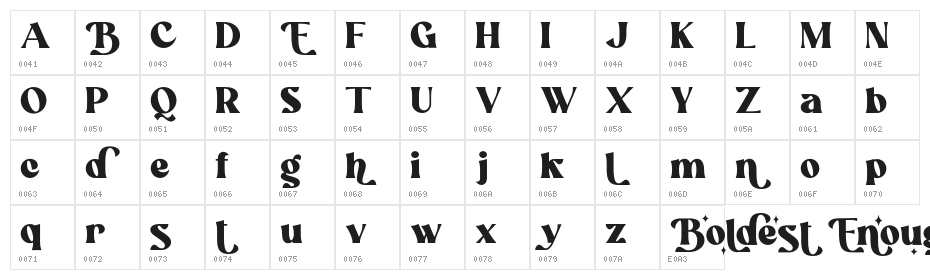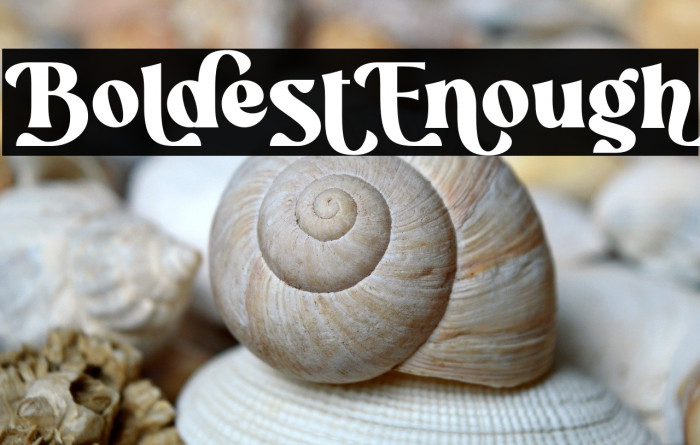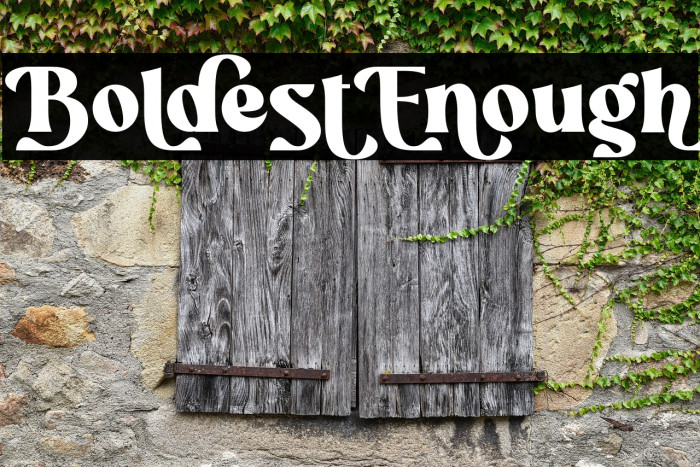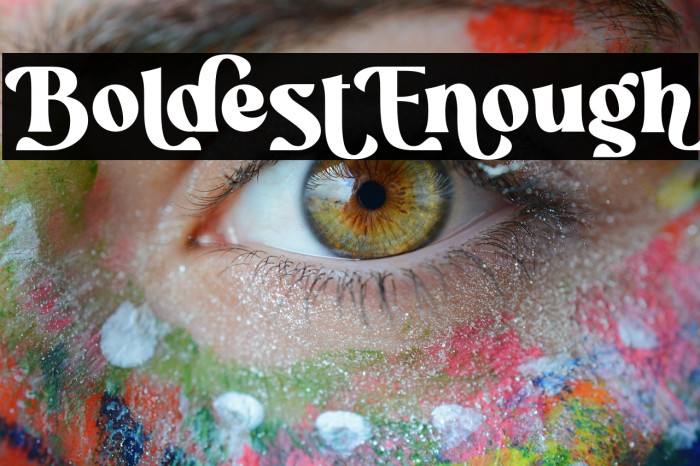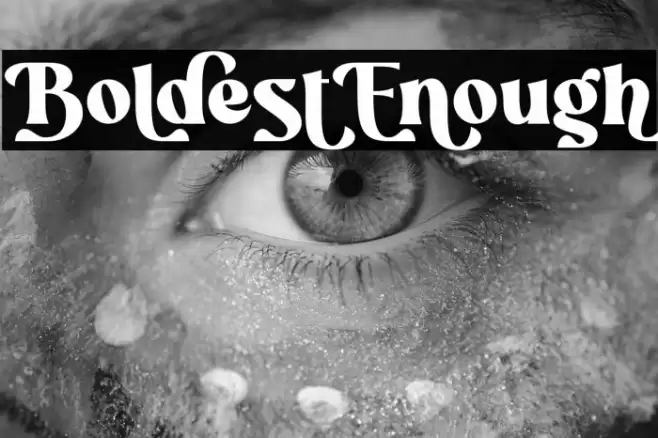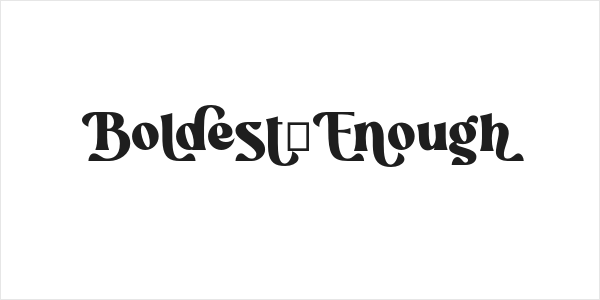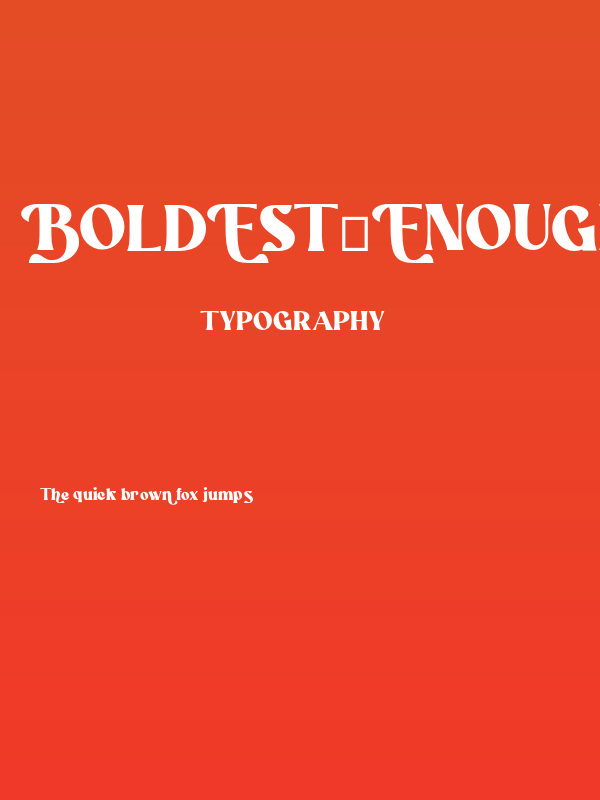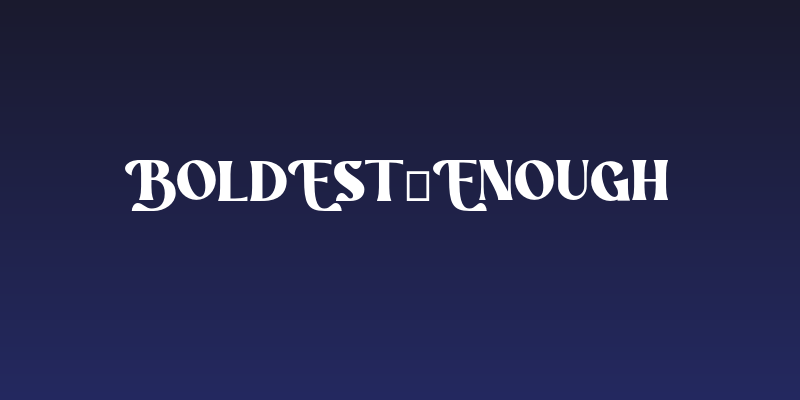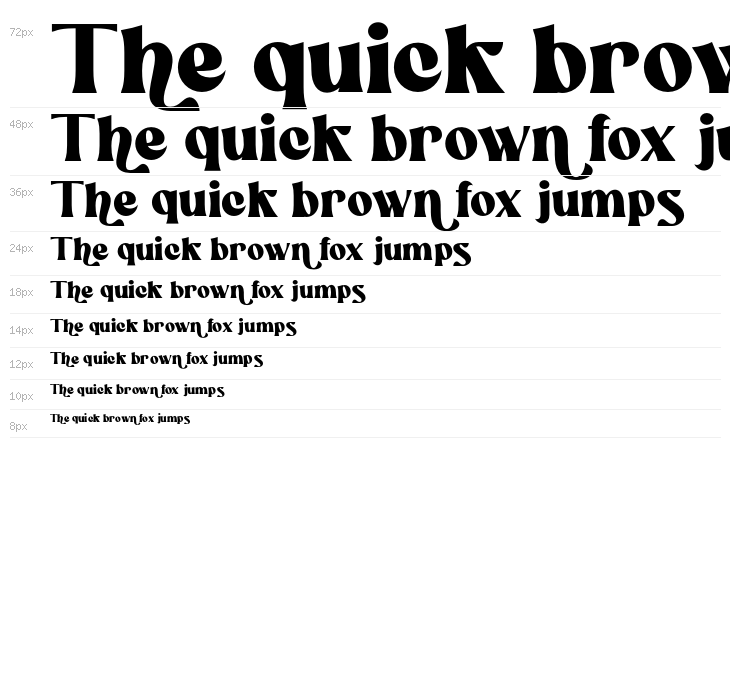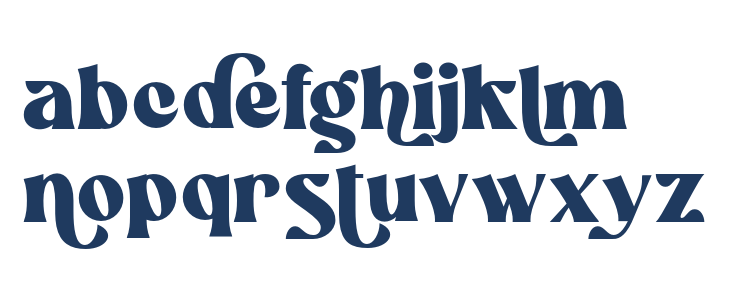
Boldest_Enough Font
Boldest_Enough Description
This font exhibits a bold and dynamic style with a strong presence. The characters are designed with thick strokes and a slight curvature, giving them a playful yet assertive appearance. The uppercase letters are particularly striking, with unique serifs that add a touch of elegance. The lowercase letters maintain the boldness while offering a more rounded and approachable feel. The overall design is cohesive, with consistent stroke weights and a balanced distribution of space. This font is ideal for making a statement, whether in headlines or branding materials.
| Proposed Projects | Ideal for branding, poster design, headlines, and any project requiring a bold statement. |